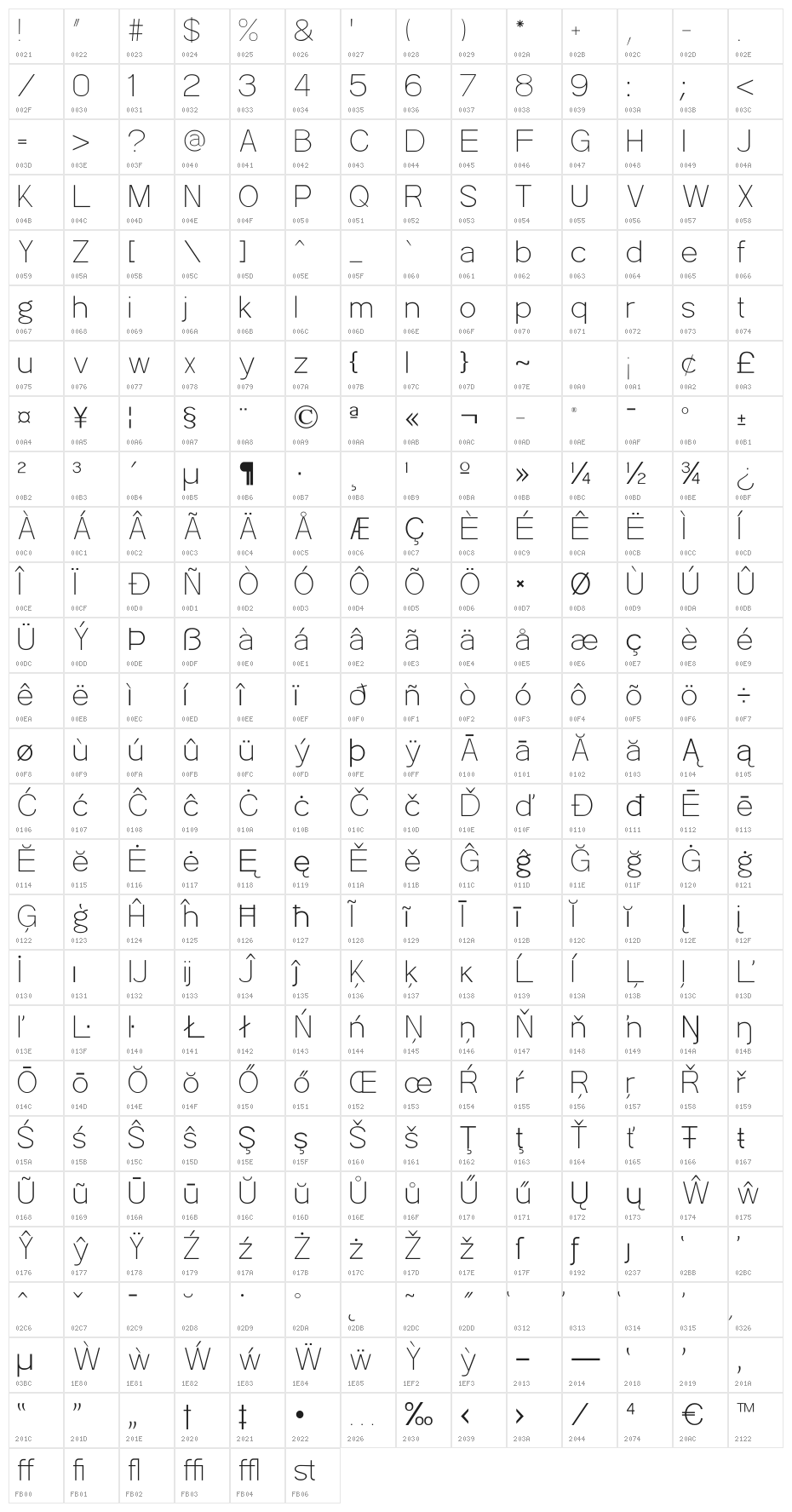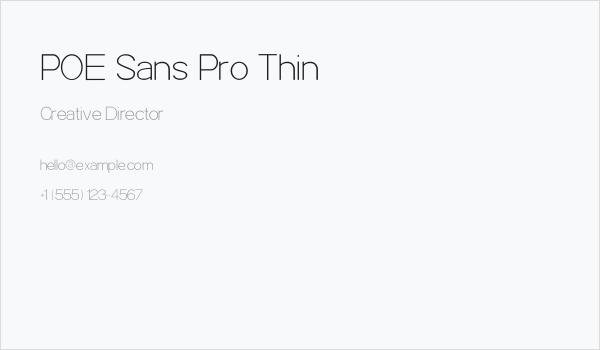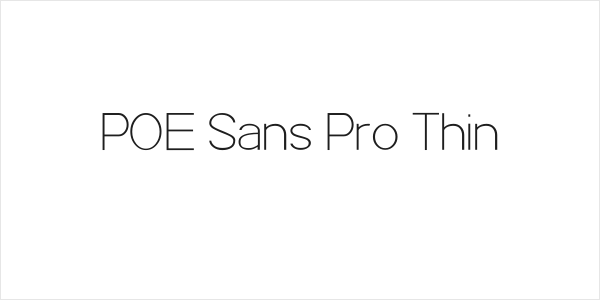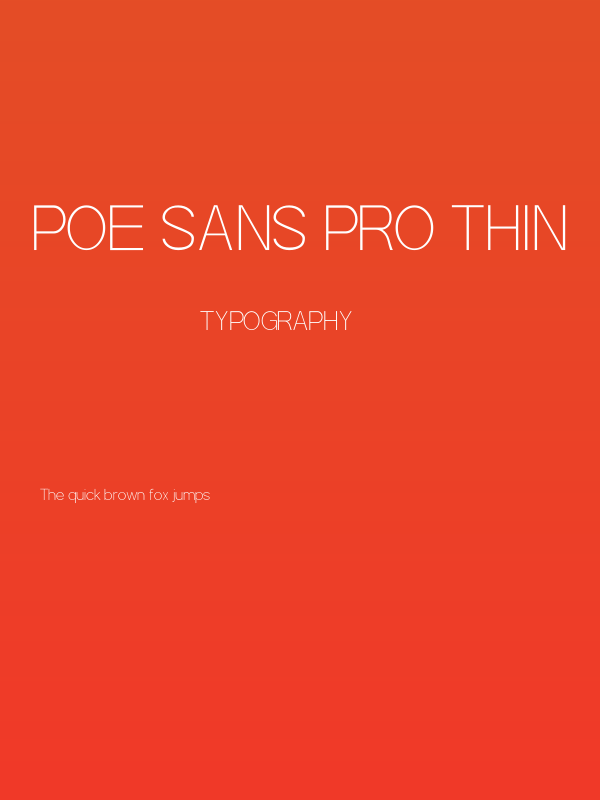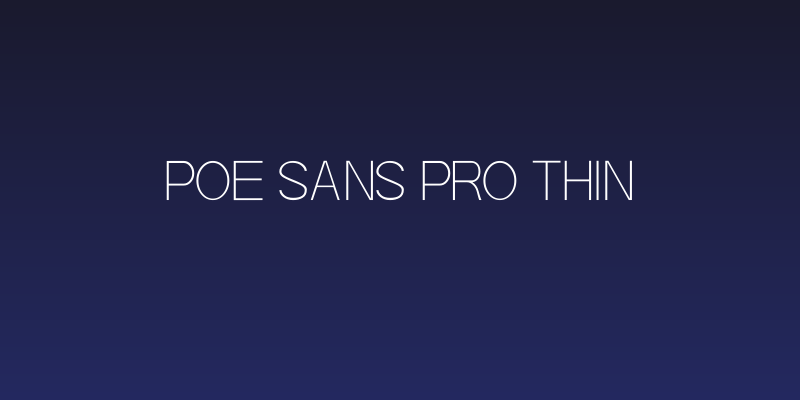
POE Sans Pro Thin Font
POE Sans Pro Thin Description
This font features a clean and modern sans-serif design with thin, uniform strokes that convey a sense of elegance and minimalism. The characters are well-proportioned, offering a harmonious balance between height and width. The uppercase letters are bold and assertive, while the lowercase letters maintain a friendly and approachable appearance. The numerals are clear and easy to read, making them suitable for various applications. Special characters are included, enhancing the font's versatility. Overall, this font's simplicity and clarity make it ideal for contemporary design projects.